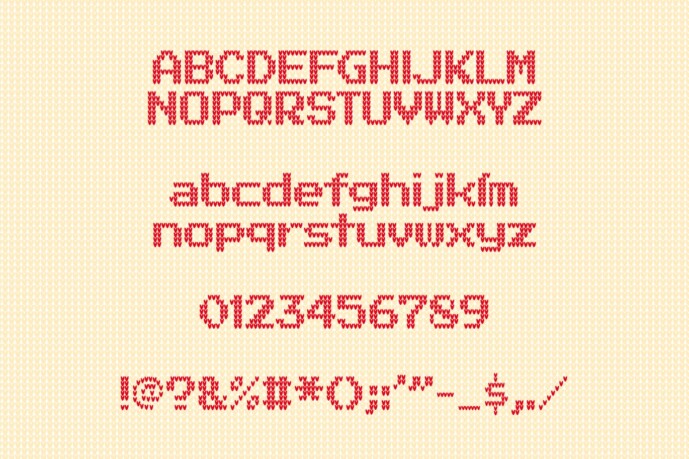
Hohoho Sweater Font
Designer: Studio2belas
Hohoho Sweater Font is a festive font inspired by the cozy and iconic patterns of Christmas sweaters. This font embodies the warmth and joy of Christmas, with playful, knitted-style letters that mimic traditional winter clothing patterns. Each character is designed to capture the intricate details and textures reminiscent of seasonal sweaters, incorporating classic holiday motifs like snowflakes, reindeer, and festive geometric shapes. Perfect for Christmas cards, holiday party invitations, and festive designs, “Hohoho” adds a joyful, nostalgic touch that evokes the spirit of togetherness and celebration during the holiday season.